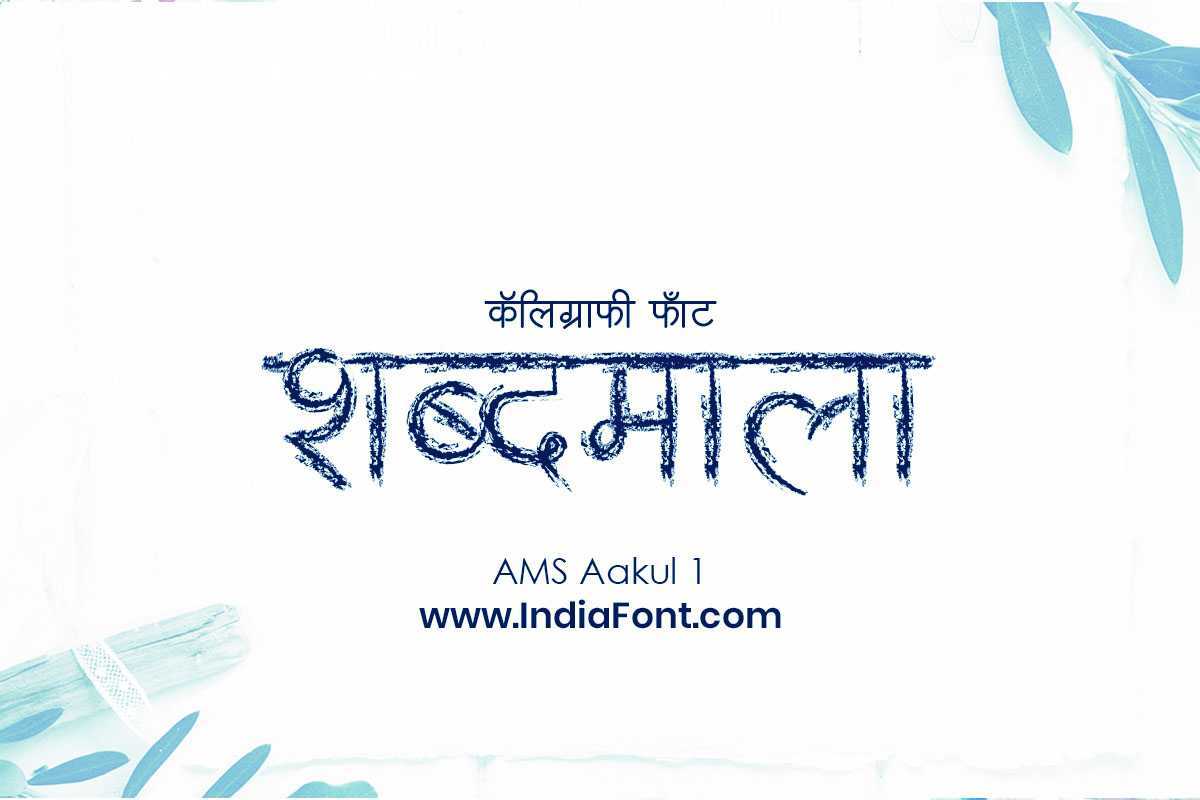
AMS Aakul 1
Explore AMS Aakul 1: distinctive decorative Devanagari font perfect for creative headings, artistic projects, and traditional designs. Master typography techniques, discover design applications, and create stunning visual content with this elegant Hindi and Marathi font.
About AMS Aakul 1 Font
Explore AMS Aakul 1: distinctive decorative Devanagari font perfect for creative headings, artistic projects, and traditional designs. Master typography techniques, discover design applications, and create stunning visual content with this elegant Hindi and Marathi font. This decorative font combines elegance with functionality, making it perfect for various design applications.
AMS Aakul 1 is a professionally crafted decorative typeface that brings clarity and style to your projects. Designed with attention to detail, it supports hindi and marathi characters flawlessly.
Whether you're working on creative-work, artistic-projects, book-covers, or other creative projects, AMS Aakul 1 delivers consistent performance across both digital and print media. This carefully designed typeface ensures readability and visual appeal in all your design work.
About AMS Aakul 1 Typography Style
AMS Aakul 1 is a professionally crafted decorative font that exemplifies modern Hindi typography design. This free font is perfect for designers seeking versatile design applications.
Available in 1 weight and supporting hindi, marathi scripts, AMS Aakul 1 offers exceptional versatility for both digital and print media. Whether you're working on creative-work, artistic-projects, book-covers, this carefully designed typeface ensures consistent quality and professional results across all your typography projects.